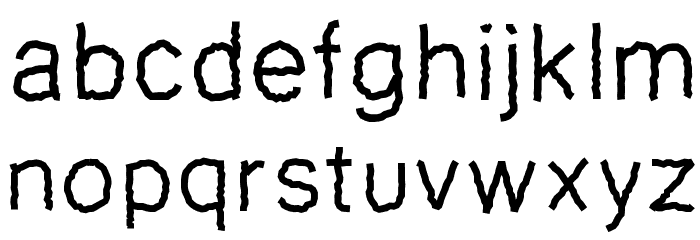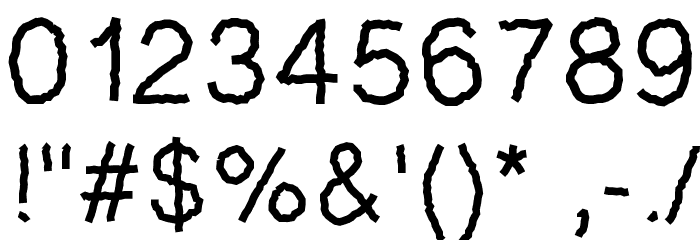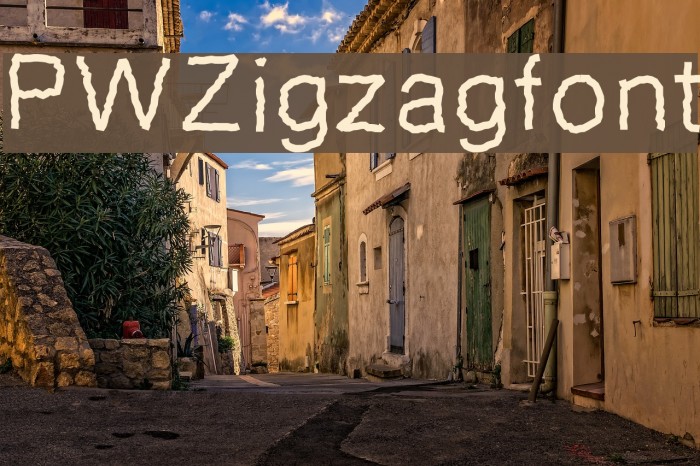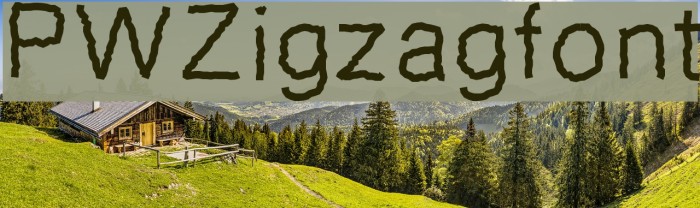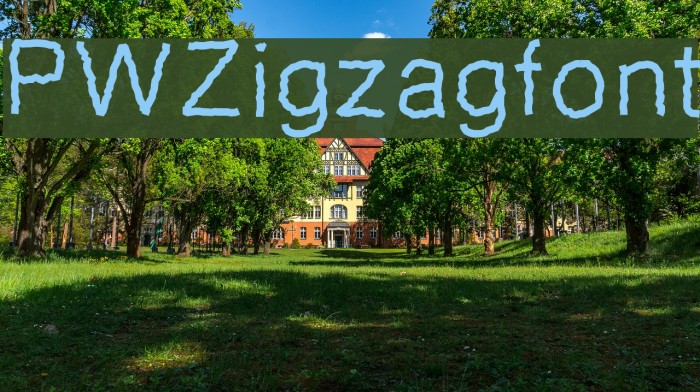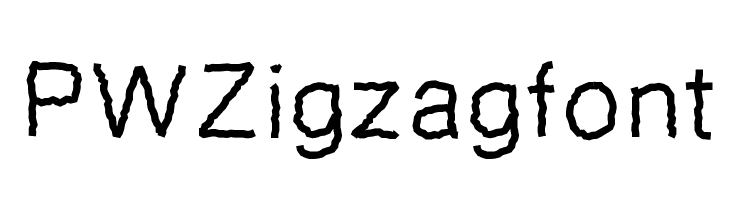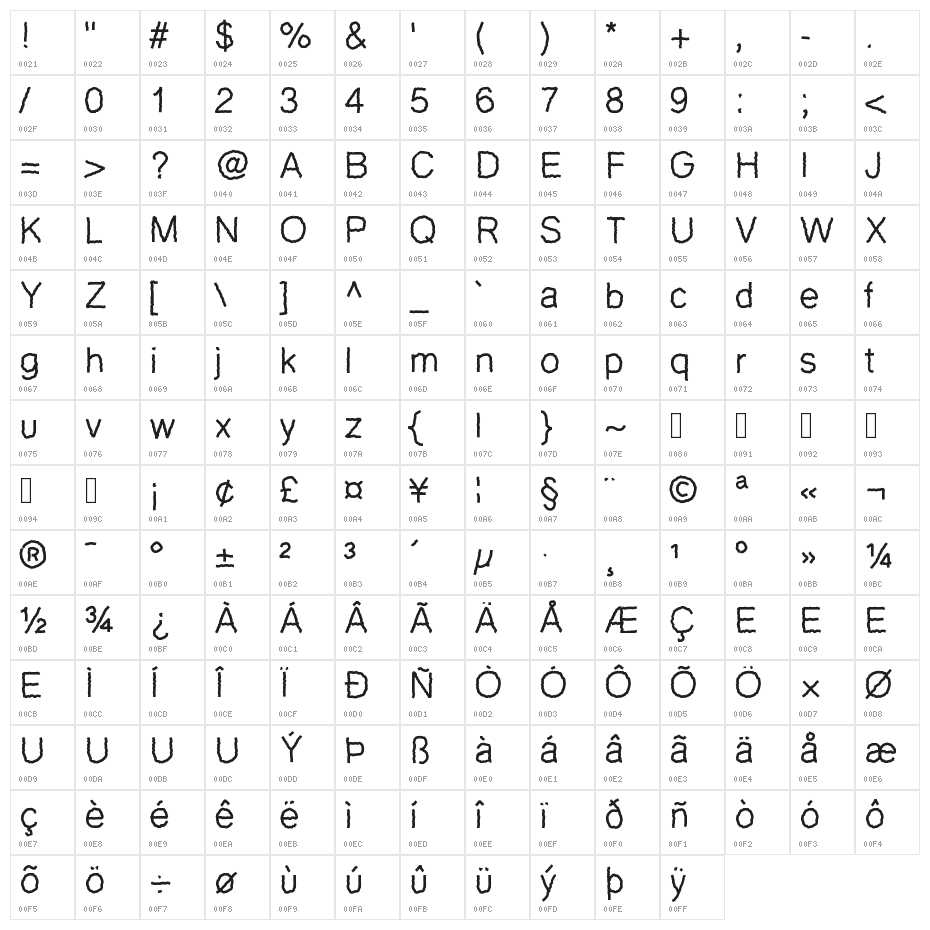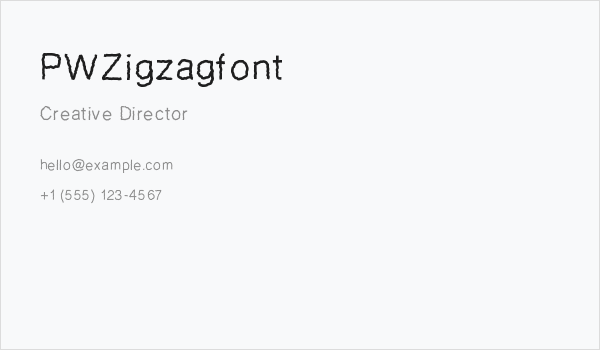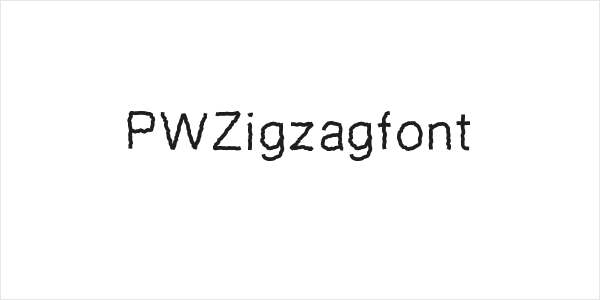
PWZigzagfont Font
This font features a unique zigzag pattern within each character, giving it a hand-drawn, textured appearance. The uppercase and lowercase letters maintain a consistent style, with slightly irregular edges that add to its charm. The numbers and special characters follow the same design, ensuring uniformity across all glyphs. The font's playful yet structured look makes it suitable for creative projects that require a touch of whimsy. Its distinct style is eye-catching and memorable, making it ideal for designs that aim to stand out.
A textured, zigzag-patterned font with a playful, hand-drawn style.
- Proposed Projects: Ideal for children's book covers, playful branding, artistic posters, and creative invitations.
- Use Case: Logos, Headlines, Artistic projects